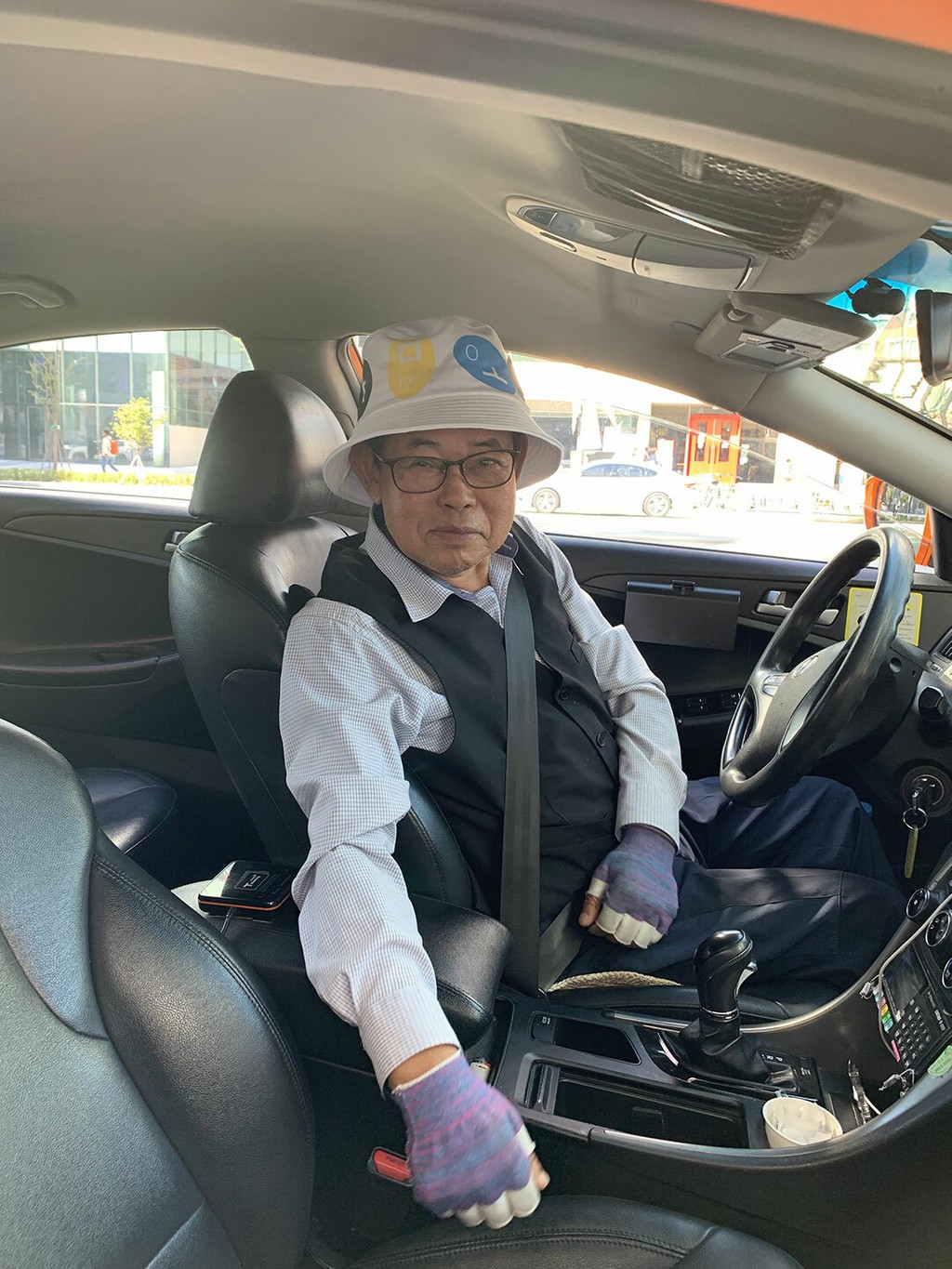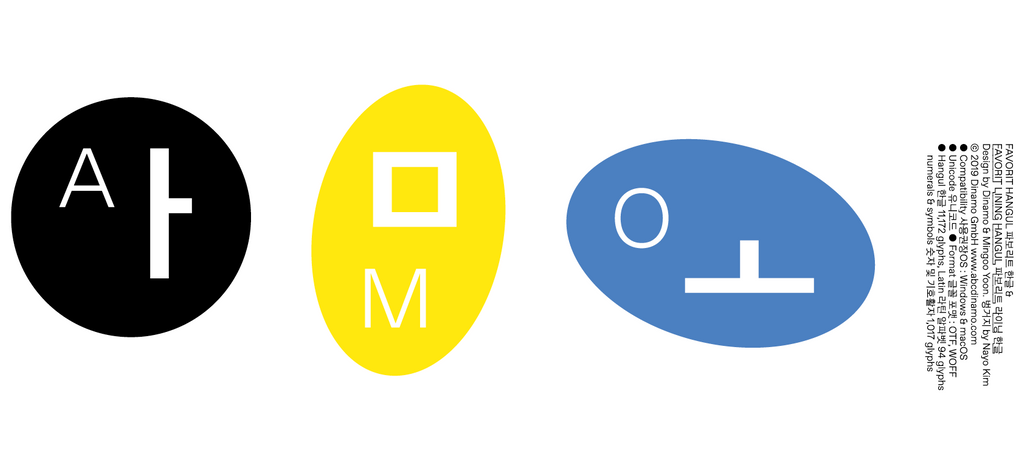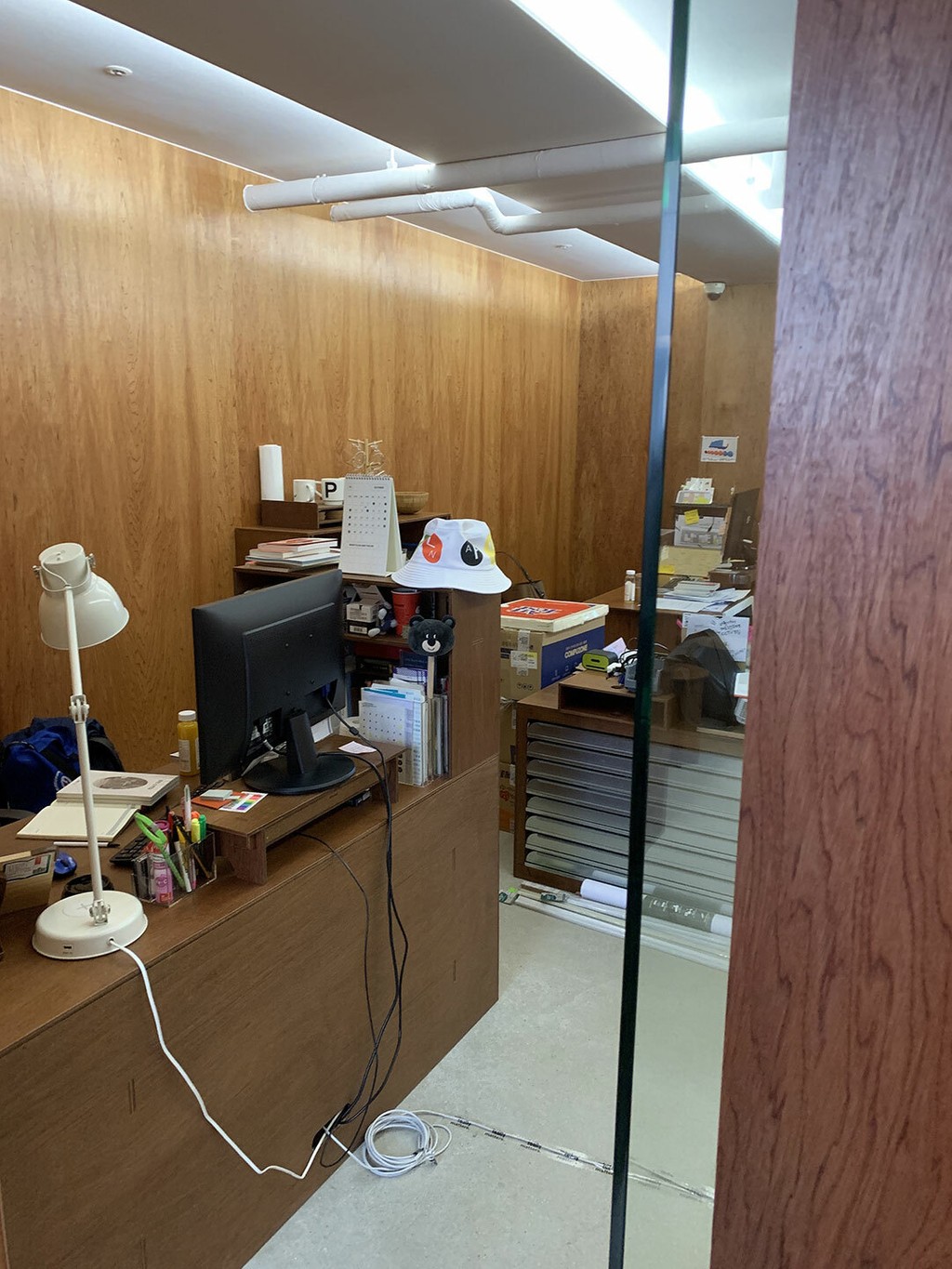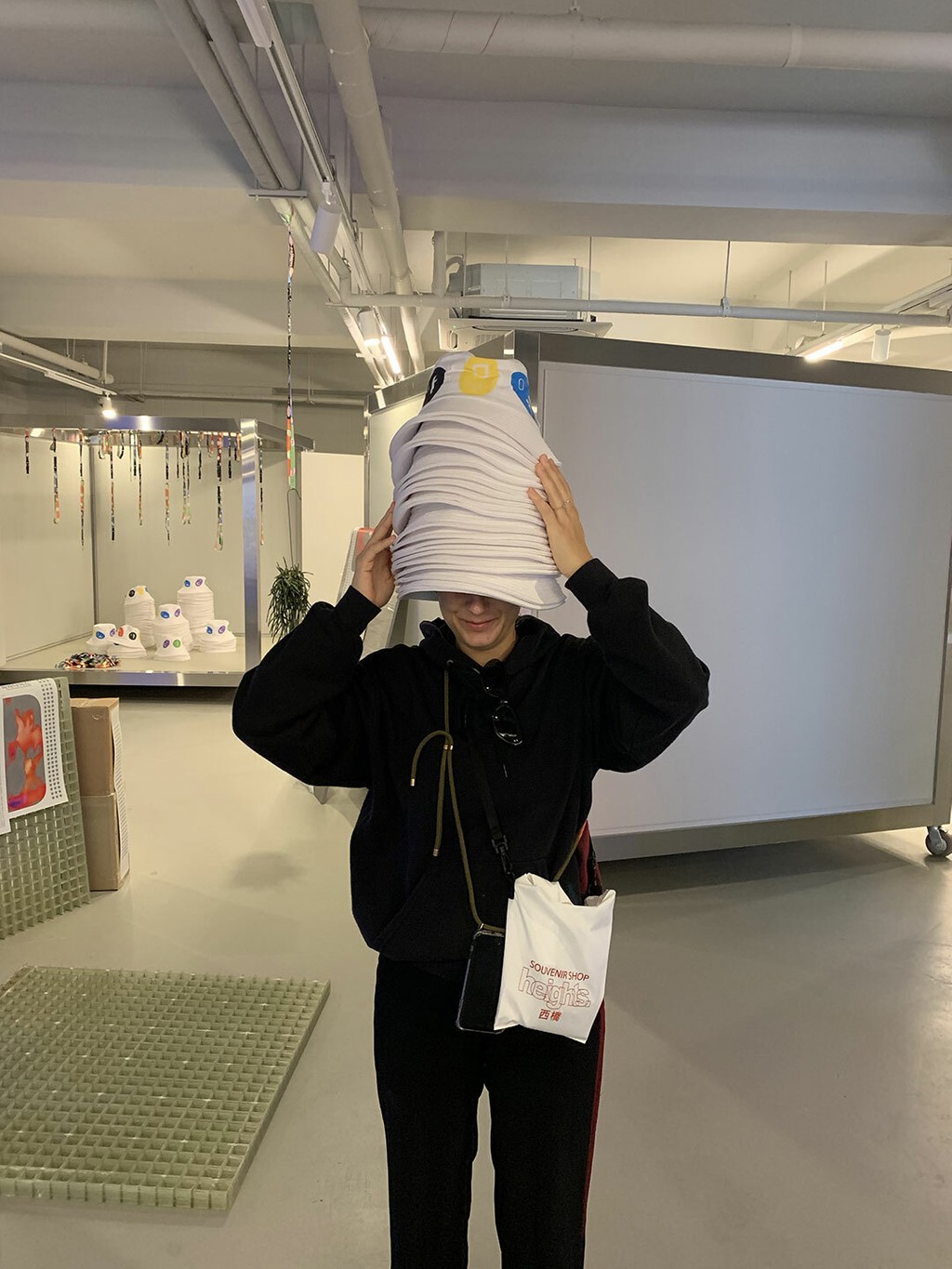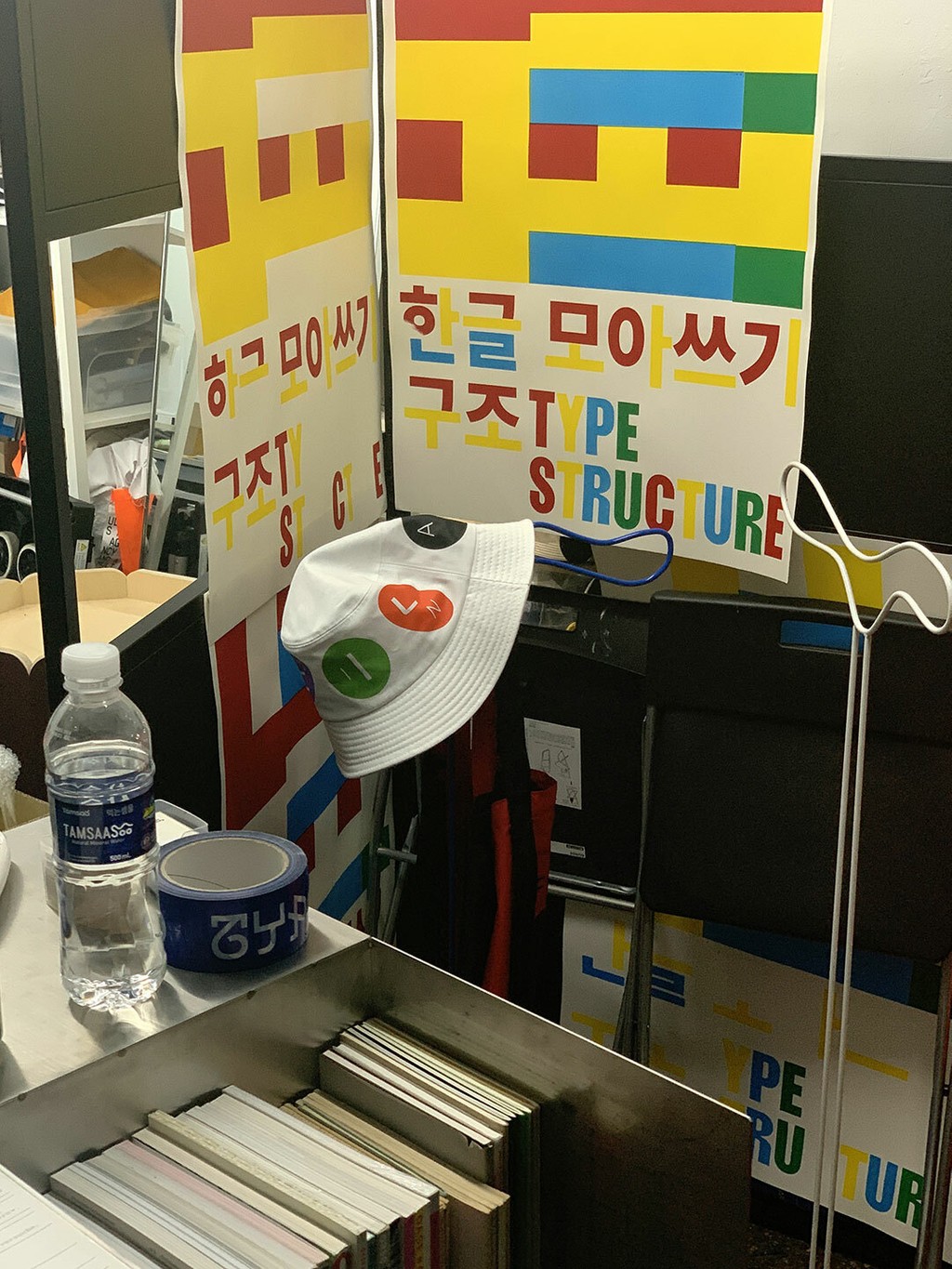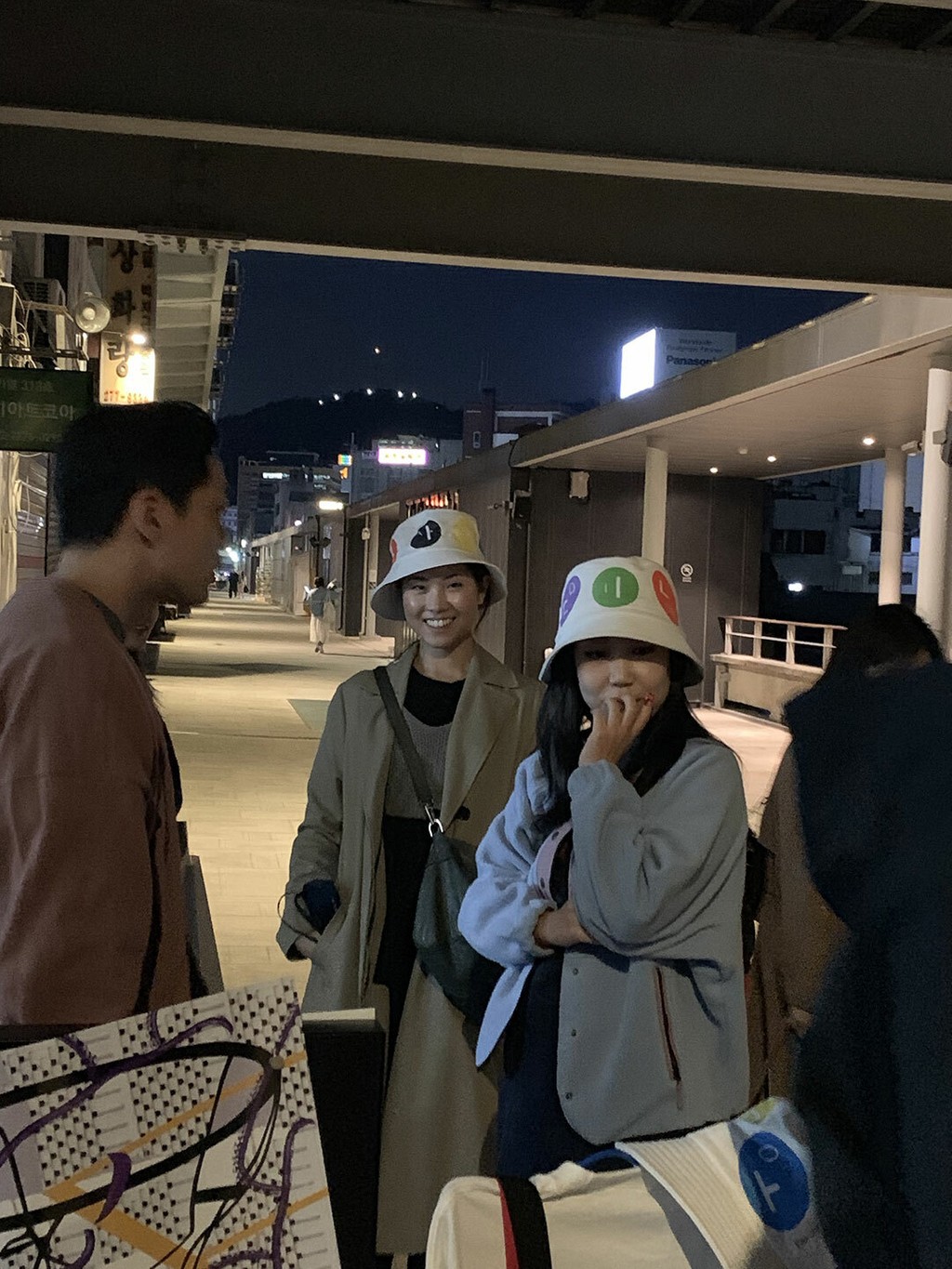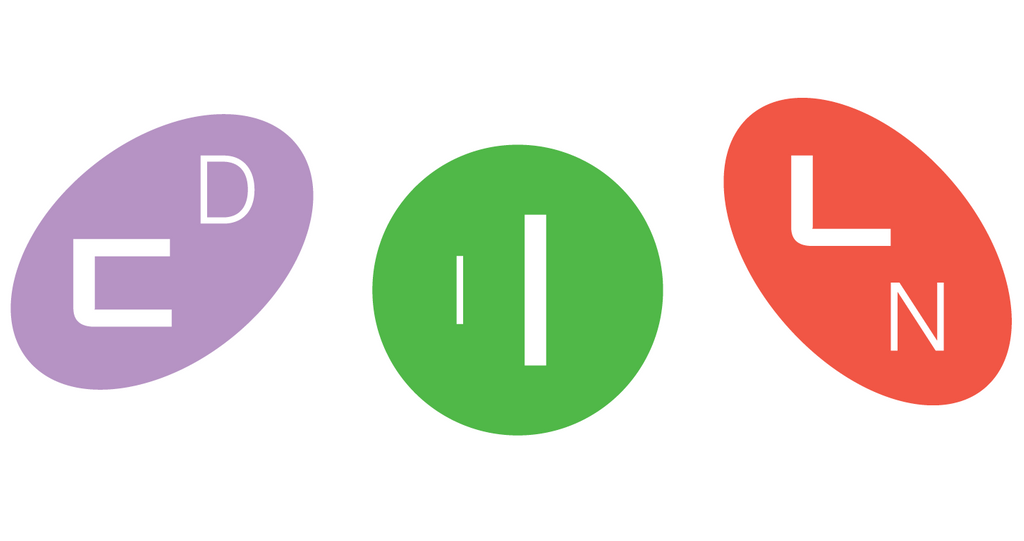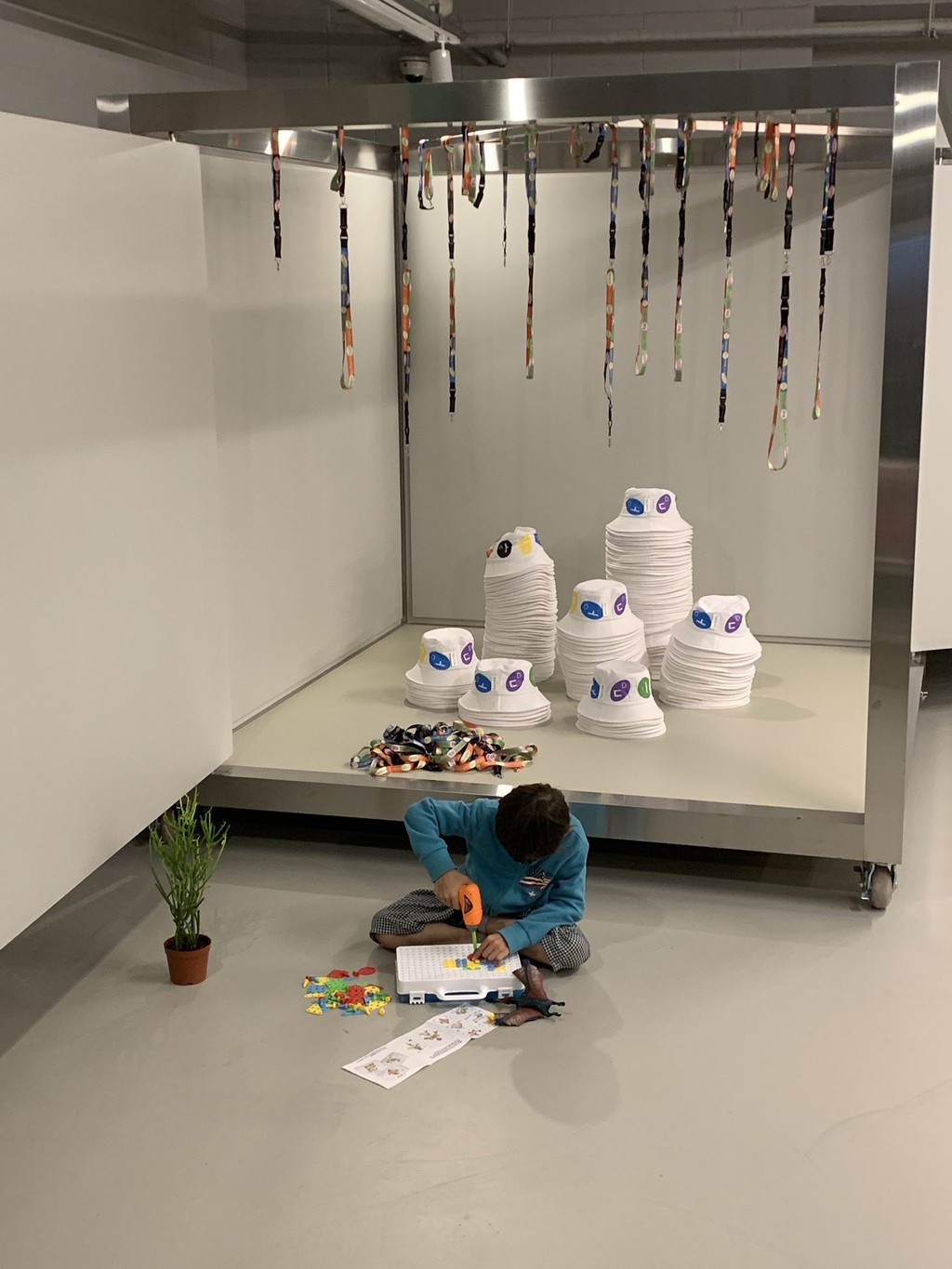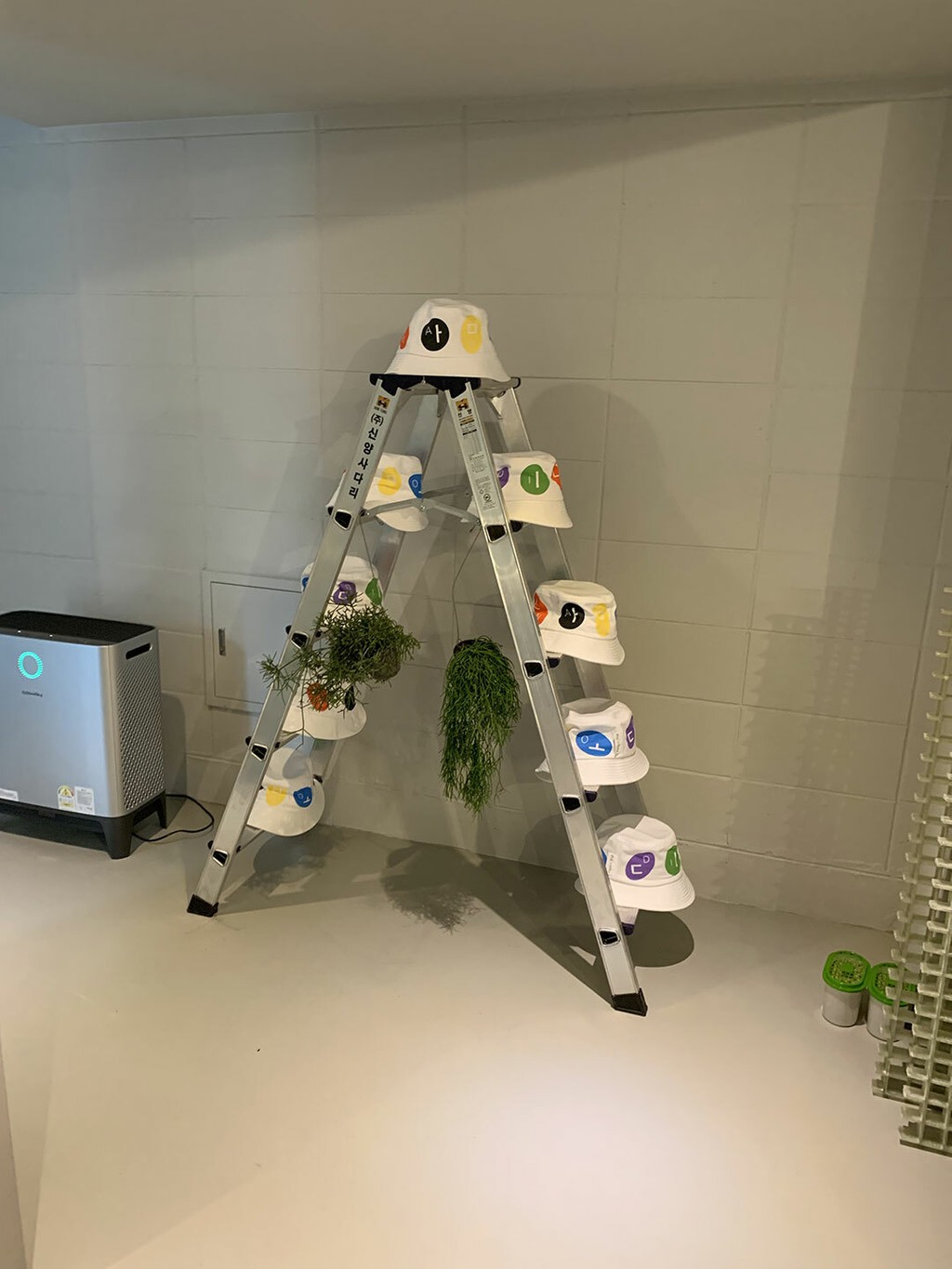
Hangul Bucket Hat
A classic, oversized bucket hat, like those traditionally worn by fishermen to keep the sun at bay. Our bucket hat is speckled with sunny ABC Favorit Hangul glyphs and was originally released on the occasion of the typeface's Seoul-based launch in 2019.
Design: Nayoung Kim
ABC Favort Hangul: Yoon Mingoo